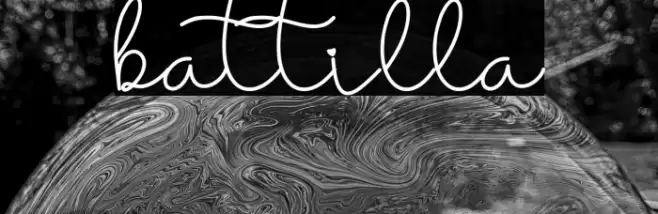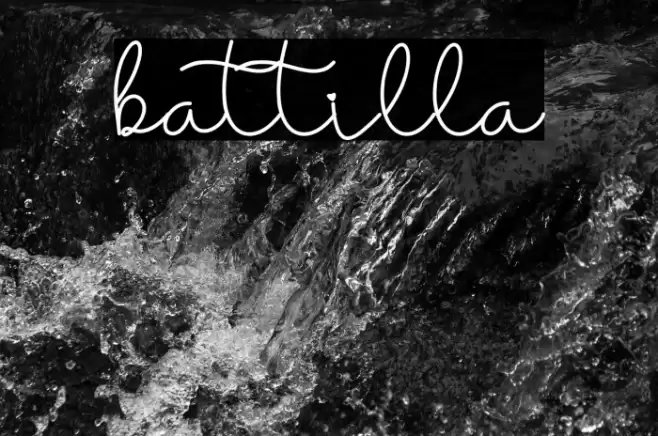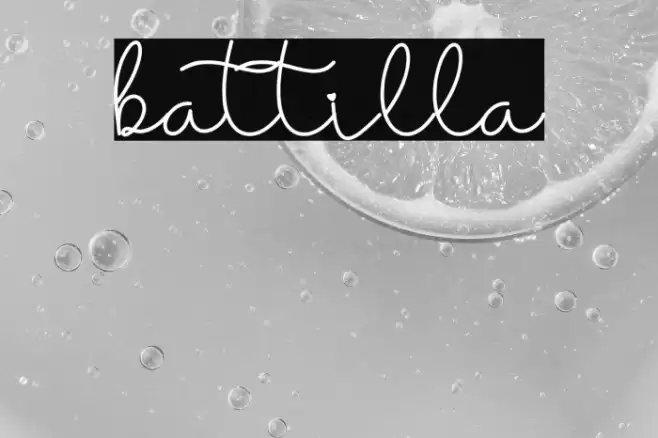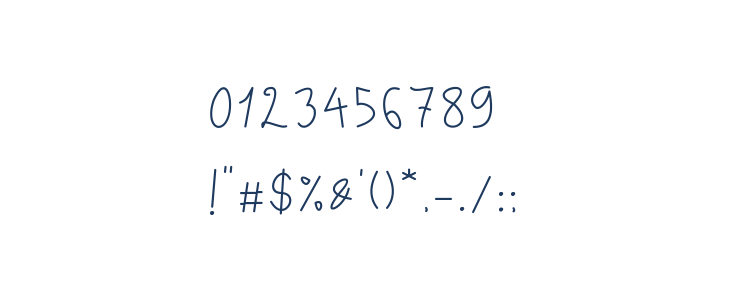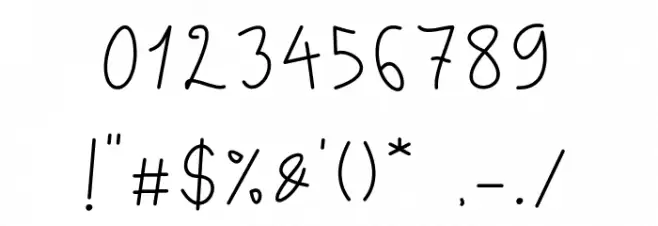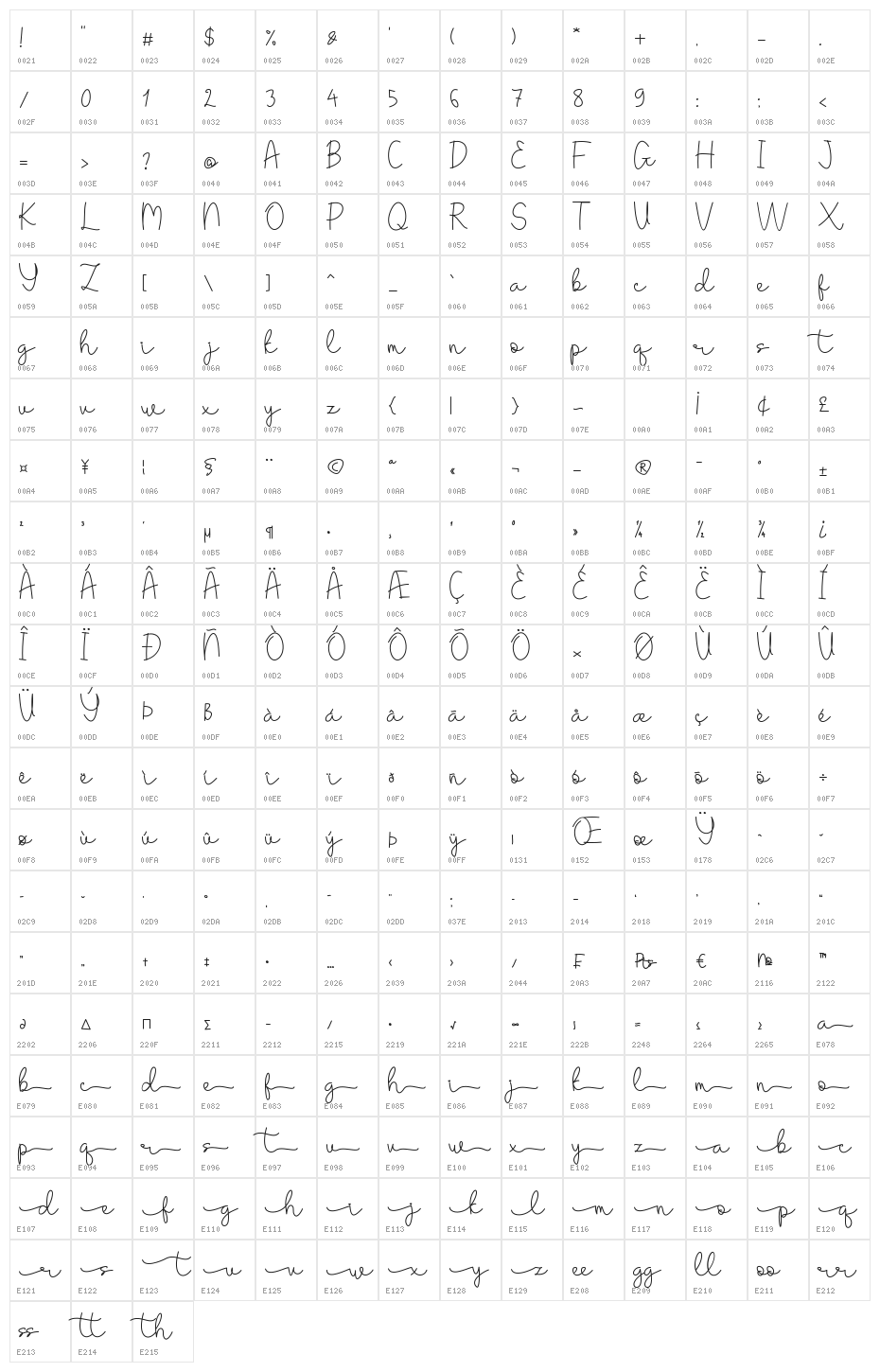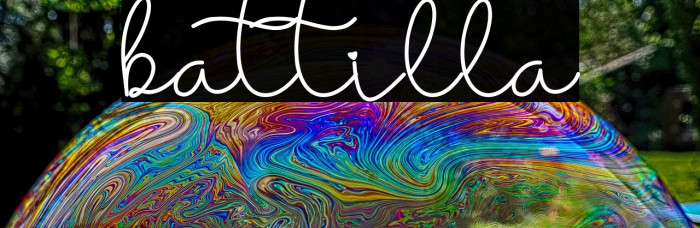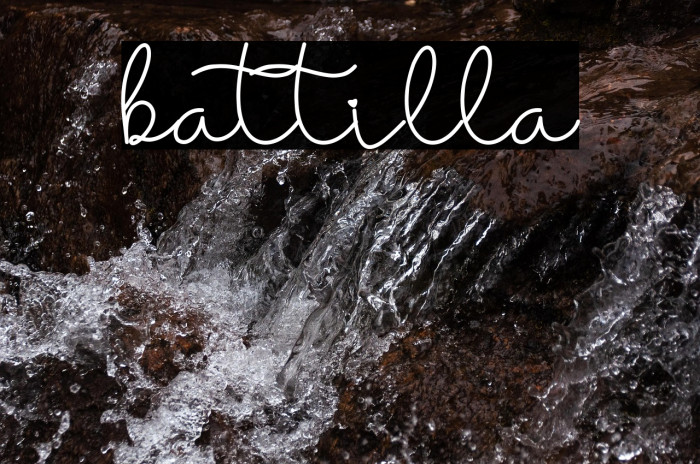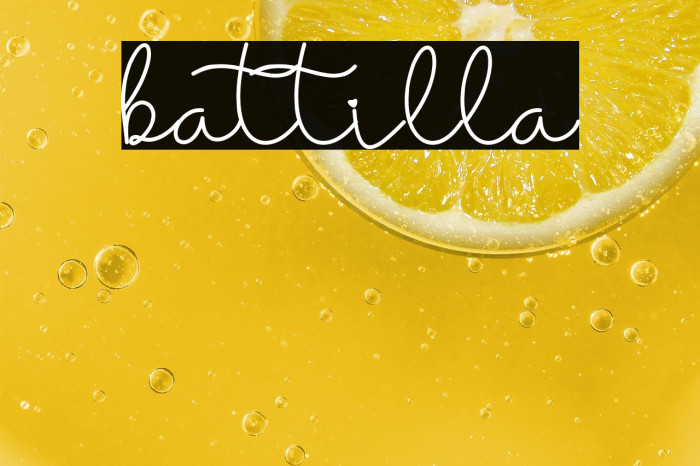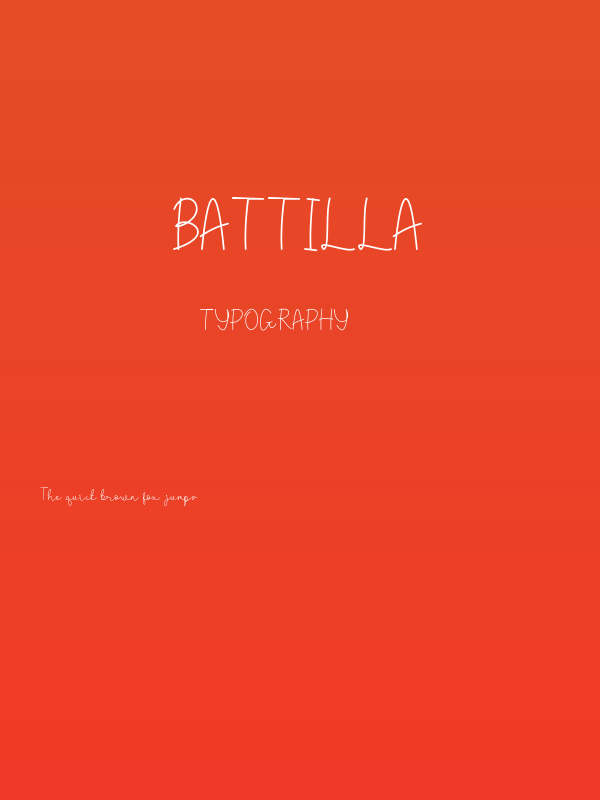
battilla Font
battilla Description
This font features a playful and whimsical handwritten style, characterized by its fluid and flowing letterforms. The uppercase letters maintain a consistent height with gentle curves, while the lowercase letters exhibit a more dynamic and varied structure, adding a touch of informality. The numerals are clear and easy to read, maintaining the same playful aesthetic. Special characters are integrated seamlessly, ensuring versatility in various design contexts. The overall appearance is casual yet elegant, making it suitable for projects that require a personal touch.
A playful handwritten font with fluid, flowing letterforms from Uncategorized fonts.
- Proposed Projects: Ideal for greeting cards, invitations, personal branding, and creative projects that require a personal and informal touch.
- Overall Style: Casual, Playful
- Use Case: Headlines, Logos, Invitations